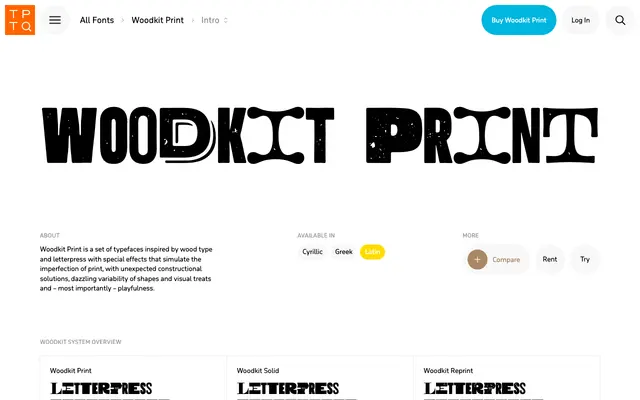
Woodkit Print
A modular letterpress-inspired display system from Typotheque, built from interchangeable alphabets, blocks, ornaments and numeral sets.
Woodkit Print is one part of a three-family system alongside Woodkit Solid and Woodkit Reprint, each sharing the same modular structure of named sub-sets: Alphabet A, Alphabet B, Blocks, Ornaments and Figures. The system draws on the tradition of wood-type letterpress printing, offering components that can be combined to build layered, textured compositions. Individual sub-sets are sold separately under city-named bundles, making it a flexible toolkit for poster and editorial work.
Woodkit Print is a modular, letterpress-inspired display system built from interchangeable alphabets, blocks, ornaments and figures, placing it firmly in the display category with a decorative/ornamental subcategory.